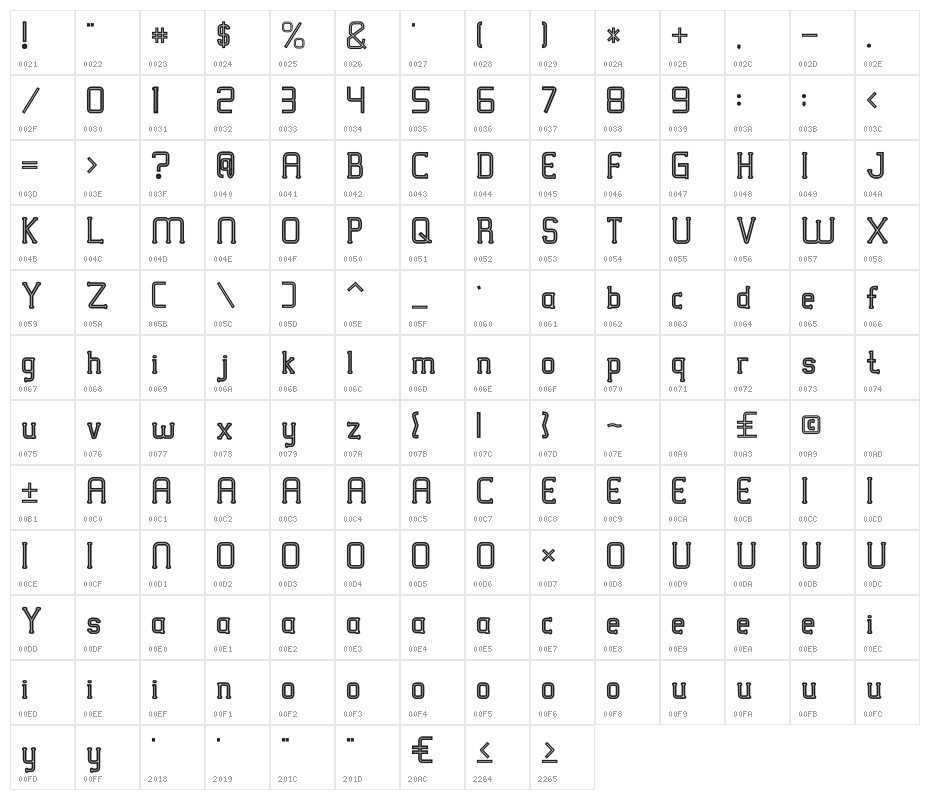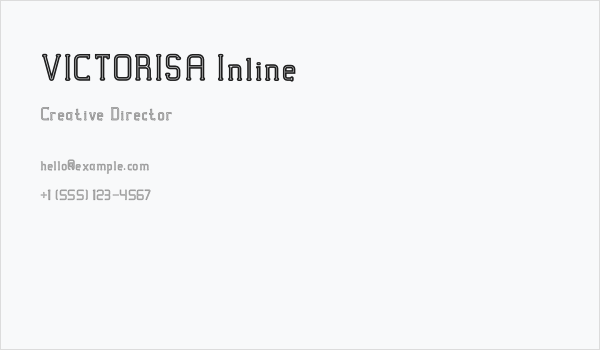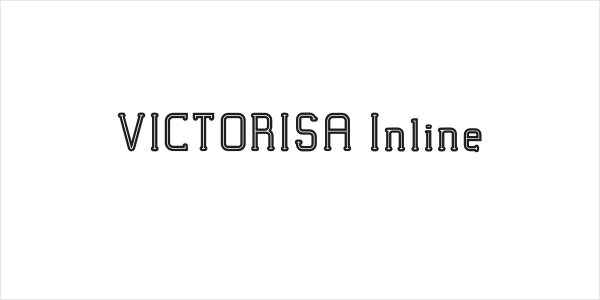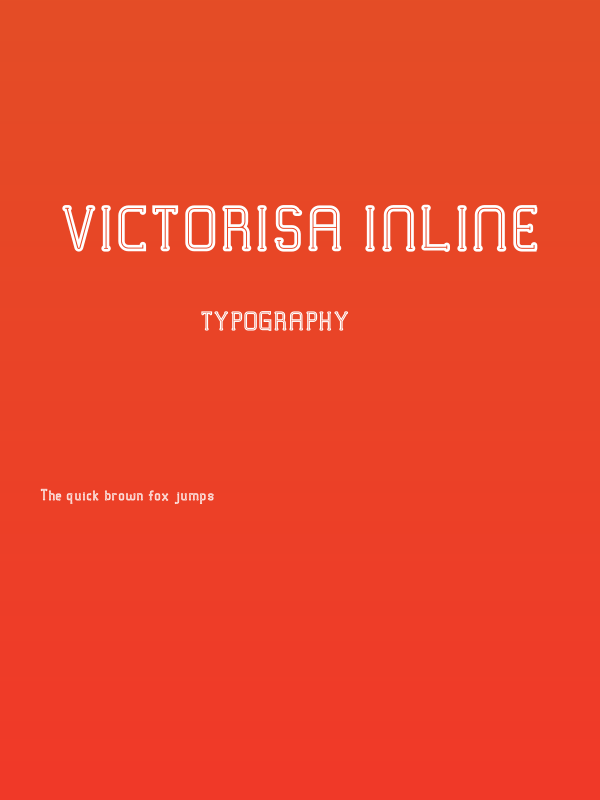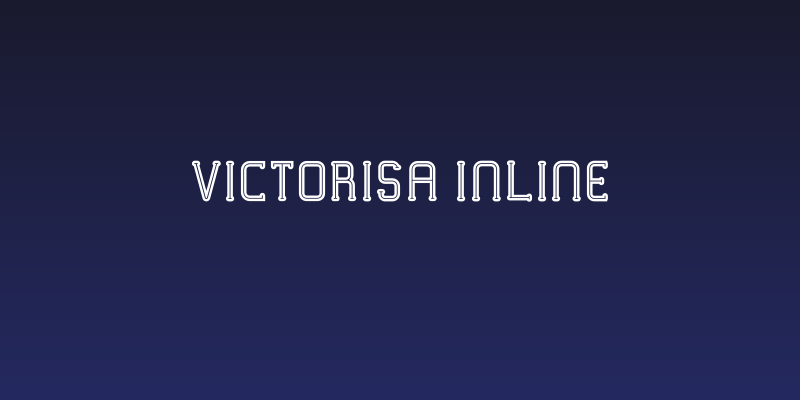
VICTORISA Inline Font
VICTORISA Inline Description
This font features a unique inline design with a modern and geometric aesthetic. The characters are outlined with a double line, creating a hollow effect that adds depth and dimension. The uppercase and lowercase letters maintain a consistent structure, with rounded corners and a uniform stroke width. The numerals and special characters follow the same design principles, ensuring a cohesive look across all elements. The font's clean lines and contemporary style make it versatile for various design applications.
| Proposed Projects | Ideal for branding, posters, headlines, and digital media where a modern and distinctive look is desired. |